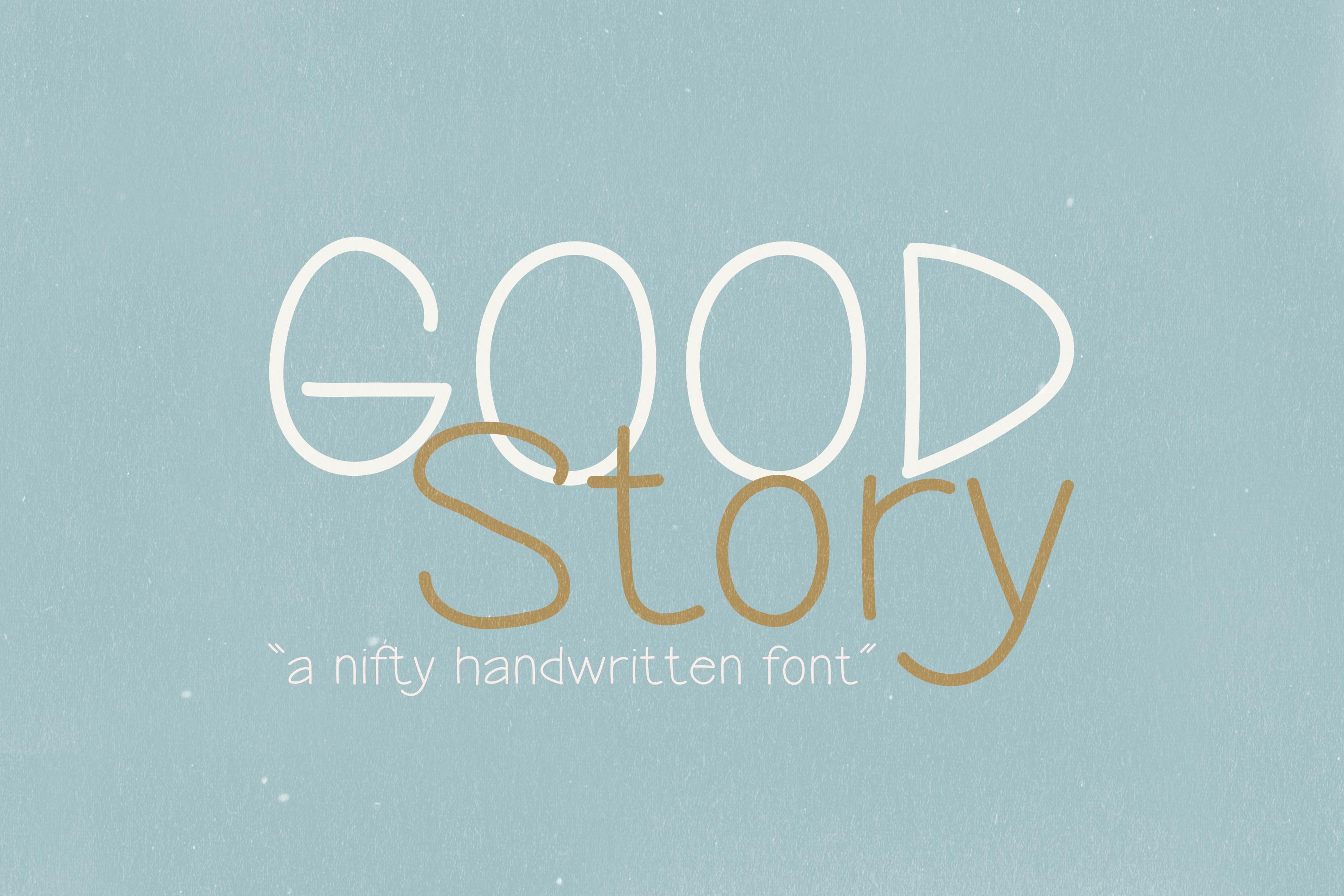
Good Story is a cute and whimsical handwritten font, that can be used for all chalkboard quotes or teaching material! Its authentic look and feel will add a personal and realistic feel to your designs.